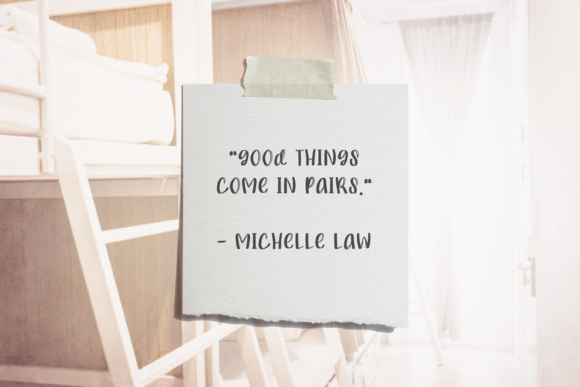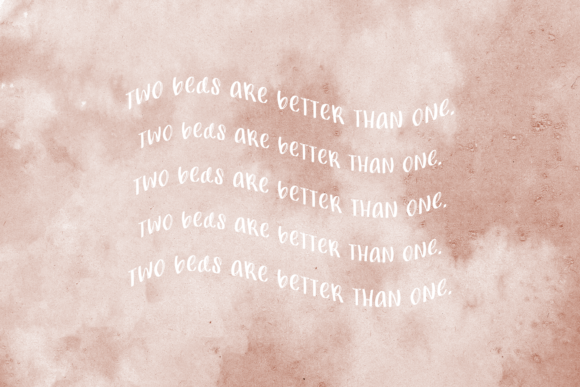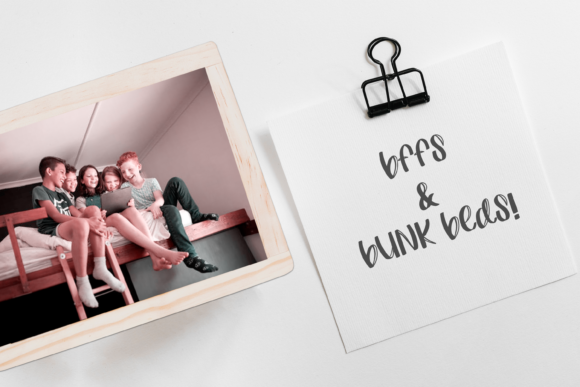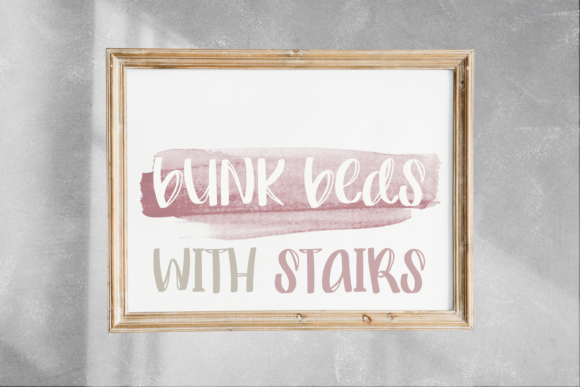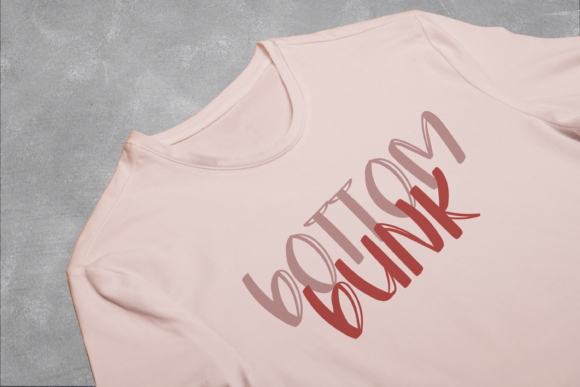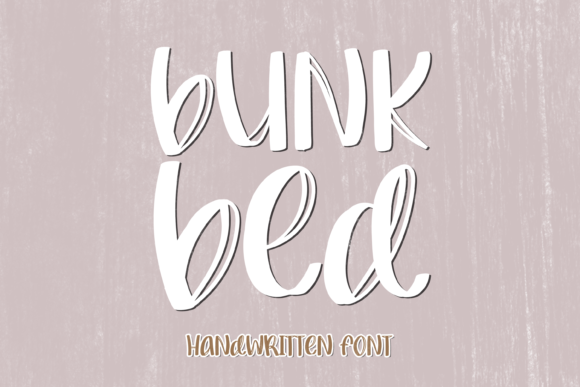
Bunk Bed Font: Add a Playful Touch to Your Designs
Are you tired of using the same old fonts in your design projects? Look no further than Bunk Bed, a quirky and trendy handwritten font that’s sure to add a playful touch to any design. With its incredibly playful feel, Bunk Bed is the perfect choice for designers and crafters who want to create standout designs that capture attention.
What is Bunk Bed Font?
Bunk Bed is a unique and creative font that’s inspired by the carefree and playful spirit of childhood. This handwritten font is characterized by its irregular shapes, varying line widths, and whimsical flair, giving it a distinctly playful and fun feel. Whether you’re working on a design project for a kids’ brand, a craft project, or simply want to add some personality to your digital designs, Bunk Bed is the perfect choice.
Key Features of Bunk Bed Font
• Quirky and Trendy: Bunk Bed has a distinctly quirky and trendy vibe that’s sure to make your designs stand out.
• Handwritten: This font has a genuine handwritten feel that’s perfect for adding a personal touch to your designs.
• Playful: With its irregular shapes and whimsical flair, Bunk Bed is the perfect choice for designs that require a playful touch.
• Versatile: Bunk Bed can be used for a wide range of design projects, from kids’ brands to craft projects and digital designs.
How to Use Bunk Bed Font in Your Designs
Using Bunk Bed in your designs is easy. Here are a few tips to get you started:
• Pair it with Bold Colors: Bunk Bed looks amazing when paired with bold, bright colors. Try using it with colors like pink, blue, or yellow to create a fun and playful design.
• Add Texture: Adding texture to your design can help bring out the playful feel of Bunk Bed. Try using textures like wood, fabric, or paper to add depth and interest to your design.
• Experiment with Layouts: Bunk Bed is a versatile font that can be used in a variety of layouts. Experiment with different layouts, such as bold typography or playful illustrations, to create a unique design.
Benefits of Using Bunk Bed Font
There are many benefits to using Bunk Bed in your designs. Here are a few:
• Standout Designs: Bunk Bed is a unique and creative font that’s sure to make your designs stand out from the crowd.
• Playful Feel: This font has a distinctly playful feel that’s perfect for designs that require a fun and carefree vibe.
• Easy to Use: Bunk Bed is easy to use and can be paired with a wide range of colors, textures, and layouts.
Who Can Use Bunk Bed Font?
Bunk Bed is a versatile font that can be used by a wide range of designers and crafters, including:
• Graphic Designers: Graphic designers can use Bunk Bed to create fun and playful designs for clients, such as logos, brochures, and social media graphics.
• Crafters: Crafters can use Bunk Bed to add a personal touch to their craft projects, such as handmade cards, scrapbook pages, and DIY signs.
• Kids’ Brands: Kids’ brands can use Bunk Bed to create fun and playful designs that appeal to kids and parents alike.
Bunk Bed is a quirky and trendy handwritten font that’s perfect for designers and crafters who want to add a playful touch to their designs. With its incredibly playful feel and versatile design, Bunk Bed is sure to make your designs stand out from the crowd. So why not give it a try and see how it can inspire your next design project?